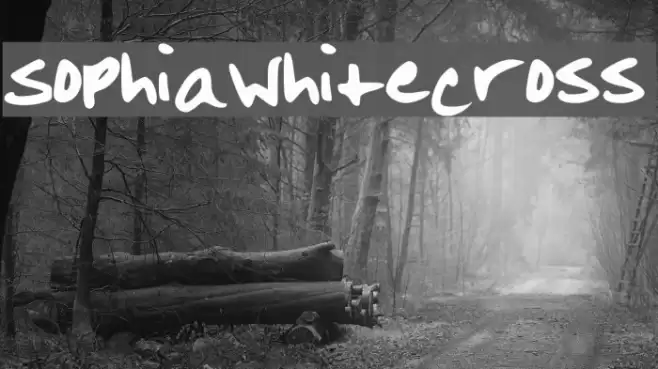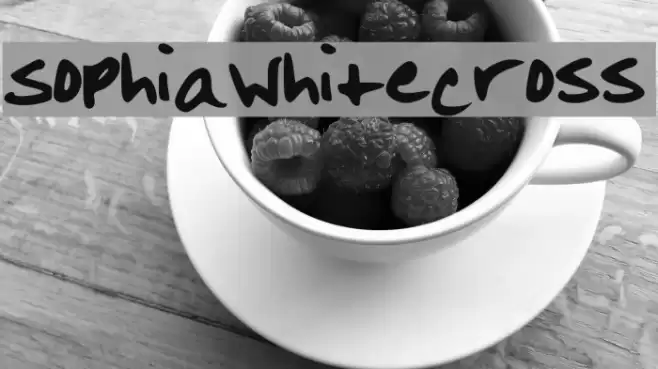
SophiaWhitecross Font
SophiaWhitecross Description
This font exhibits a bold and playful handwritten style, characterized by its thick, rounded strokes and energetic flow. The letters are slightly slanted, adding a dynamic and informal touch. The uppercase and lowercase letters maintain a consistent style, with a noticeable emphasis on curves and loops. Numbers and special characters follow the same lively design, making the font suitable for creative and casual applications. The overall appearance is friendly and approachable, ideal for projects that require a personal and expressive touch.
A bold, playful handwritten font with thick, rounded strokes and a dynamic flow from Handwritten fonts.
- Proposed Projects: Ideal for greeting cards, children's books, playful branding, and social media graphics.
- Overall Style: Playful, Casual
- Use Case: Headlines, Logos, Informal Text